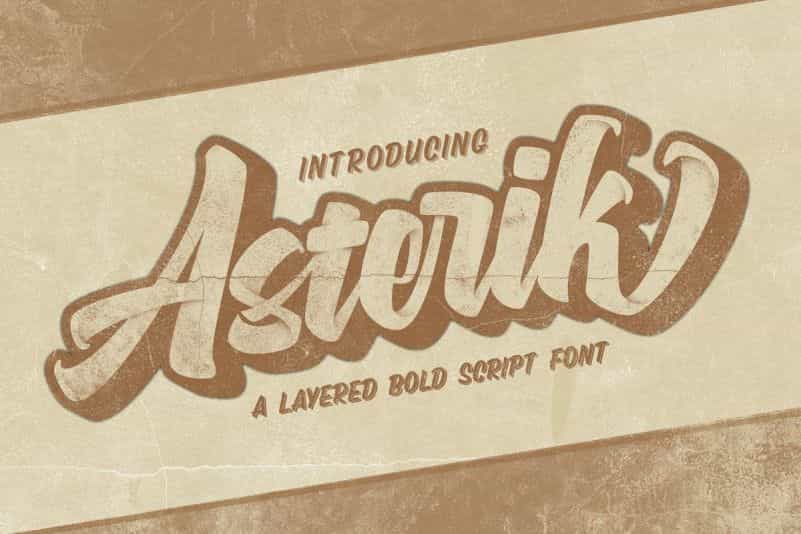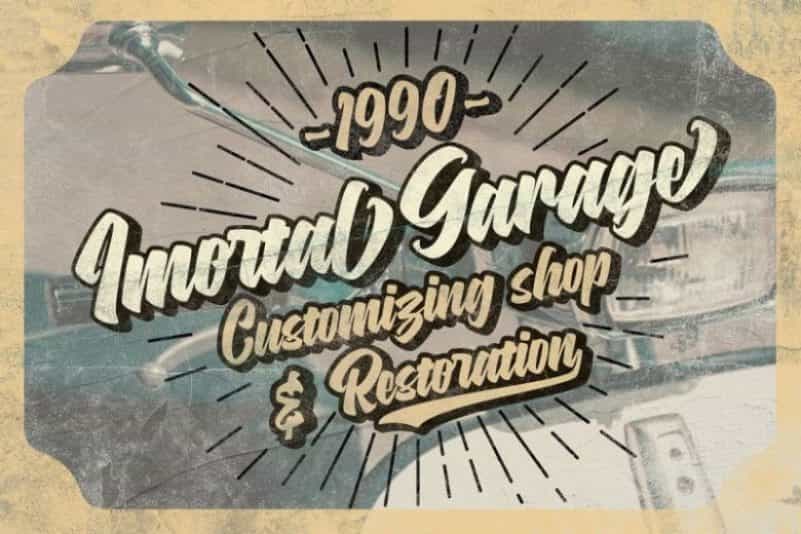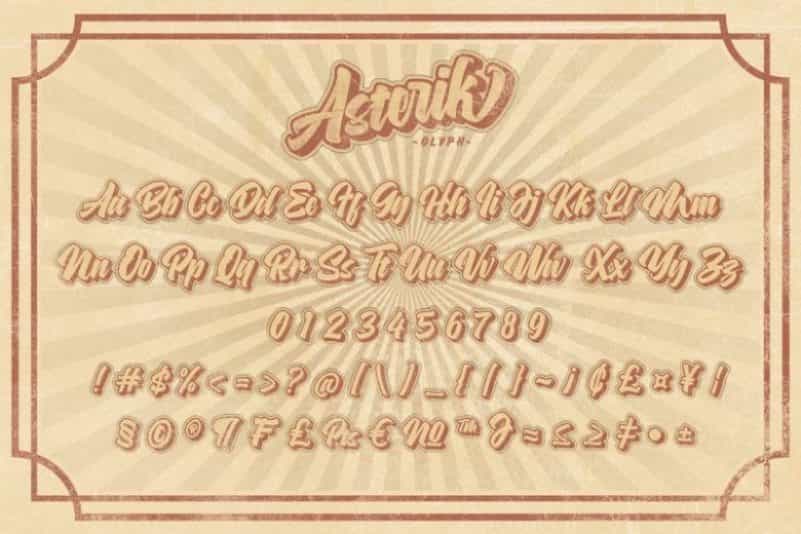
Asterik is an extremely aggressive script and has also offer some Stylistic Alternate, Ligatures, Contextual Alternate and Swashes, also it support multilingual and PUA encoded. This font created with Horizontal/Vertical anchor point so this font is clean.